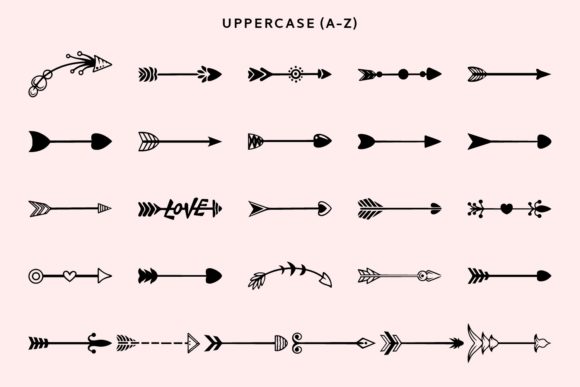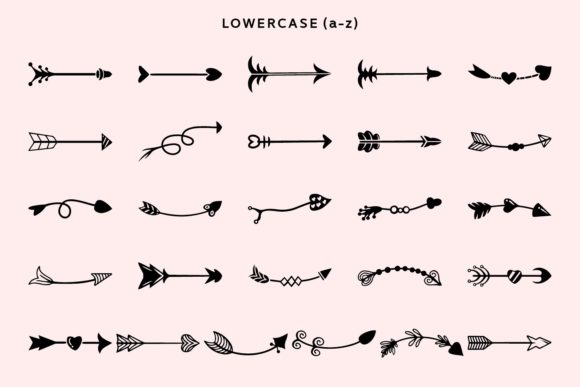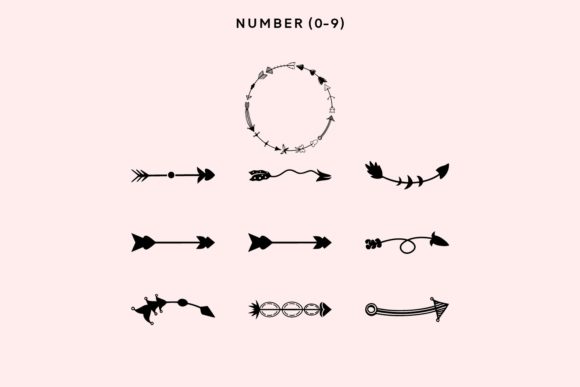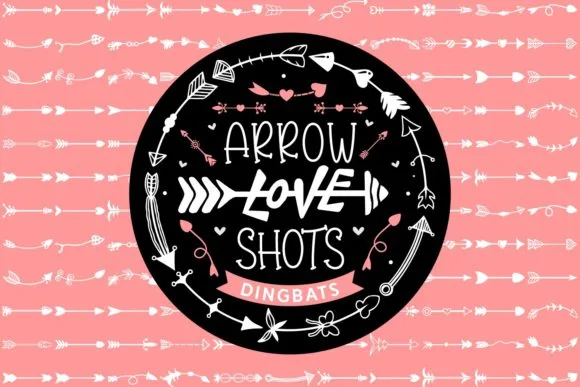
Arrow Love Shots Font
About Arrow Love Shots Font
Arrow Love Shots is a whimsical and playful dingbat font that adds a touch of love and romance to your designs. With its heart-shaped arrow details, this font is perfect for Valentine’s Day projects and beyond. Each alphabetical character and numeral represents a unique arrow design, allowing you to create captivating and eye-catching compositions.
When using Arrow Love Shots, you have a wide range of arrow variations at your fingertips. The arrows are intricately designed with a charming heart motif, making them ideal for expressing love, affection, and playfulness. Whether you’re designing greeting cards, love notes, posters, or social media graphics, this font will help you create visually appealing and romantic compositions.
To access the arrow designs in Arrow Love Shots, simply type the corresponding alphabetical character or numeral. Each character represents a different arrow shape, giving you the flexibility to mix and match, rotate, and resize them to suit your design needs. You can create custom patterns, borders, and decorative elements using these delightful arrow designs.
Arrow Love Shots is particularly well-suited for Valentine’s Day projects, as it adds a unique and romantic touch to your creations. Imagine using these heart-adorned arrows in greeting cards, love letters, or gift tags. The font allows you to convey your affection and appreciation in a visually captivating way, making your messages even more heartfelt.
However, the versatility of Arrow Love Shots extends beyond Valentine’s Day. You can incorporate these arrow designs into various projects throughout the year. Use them in wedding invitations, anniversary announcements, engagement party decorations, or any design that calls for a touch of love and romance. The playful nature of the font also makes it suitable for whimsical illustrations, children’s projects, or any design that needs a dash of charm.
Arrow Love Shots is an excellent addition to your font library, providing you with a fun and creative resource for expressing love and adding a delightful touch to your designs. Its unique arrow designs with heart details will capture the attention and imagination of your audience. So, embrace the arrow-shaped love shots and let your creativity soar with this charming dingbat font!